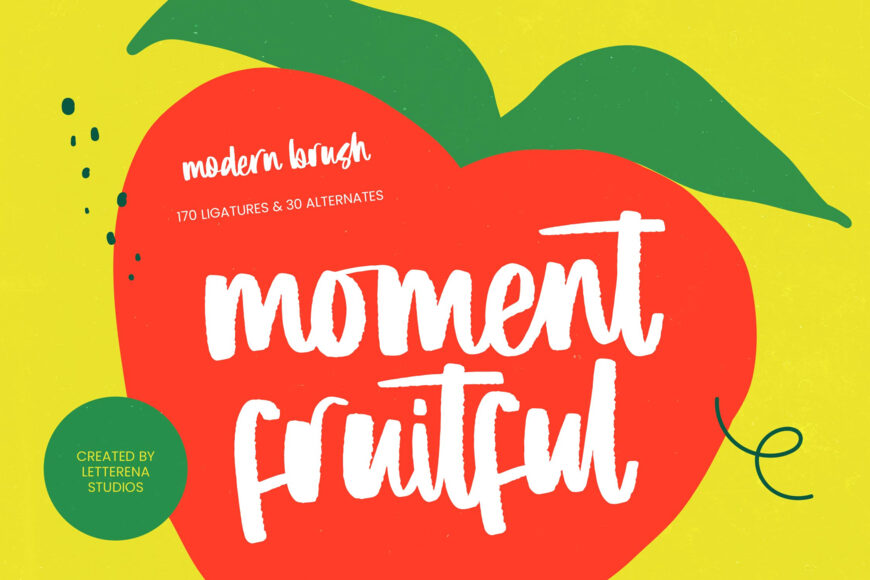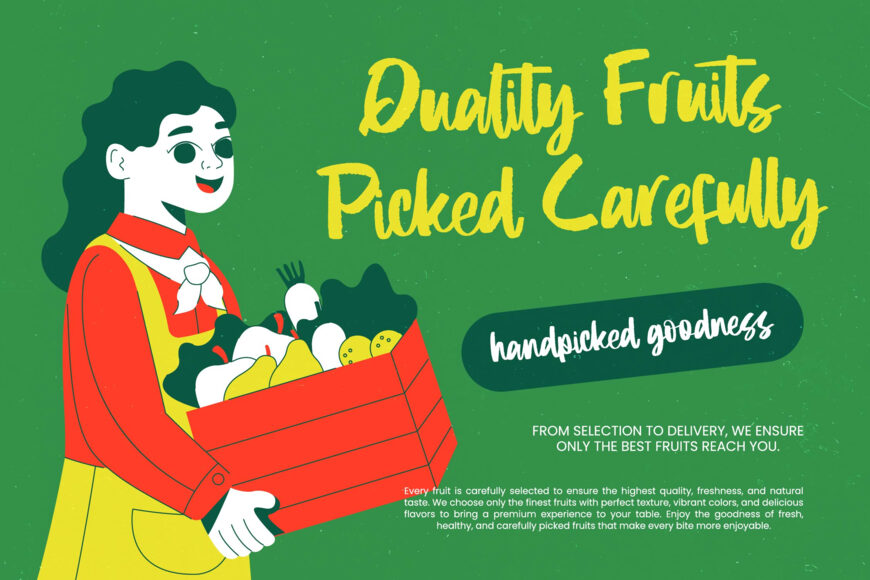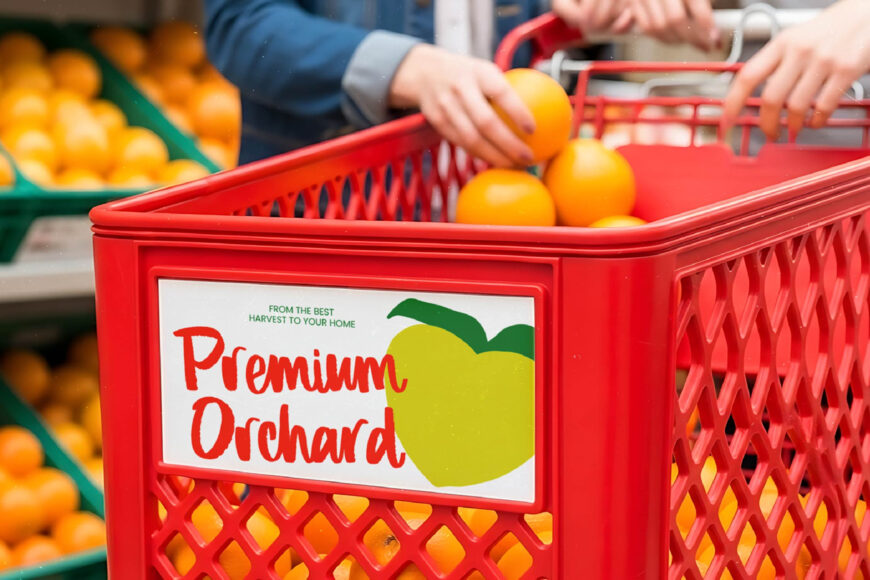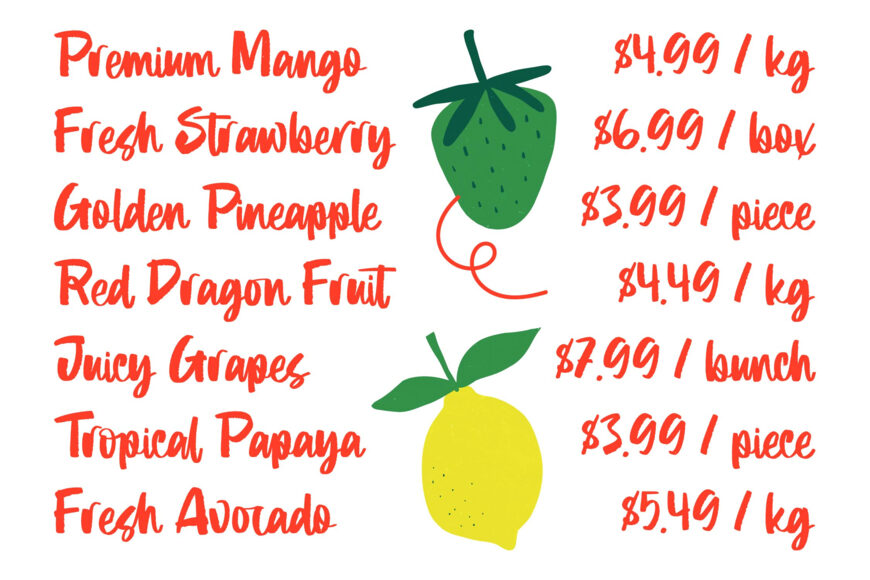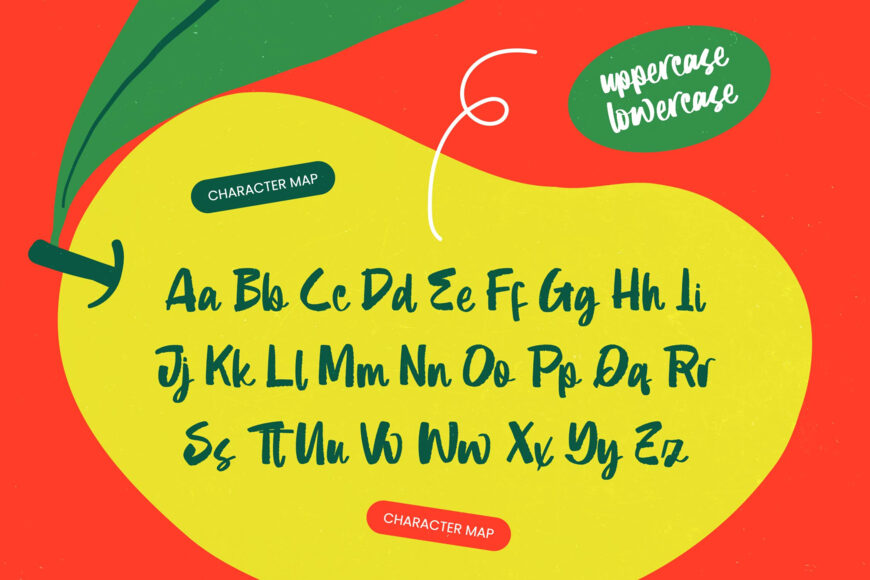
Moment Fruitful Font
Bring bold energy and artistic character to your designs with Moment Fruitful, a modern brush script blending authentic hand-drawn texture with polished contemporary style. Its spontaneous feel remains highly readable, making it suitable for impactful professional projects.
With 170 ligatures and 30 alternates, the typeface offers extensive creative flexibility for distinctive, custom lettering and premium brand identities. Extensive multilingual support ensures consistent performance across international markets, making Moment Fruitful a versatile choice for designers creating expressive, globally oriented campaigns.